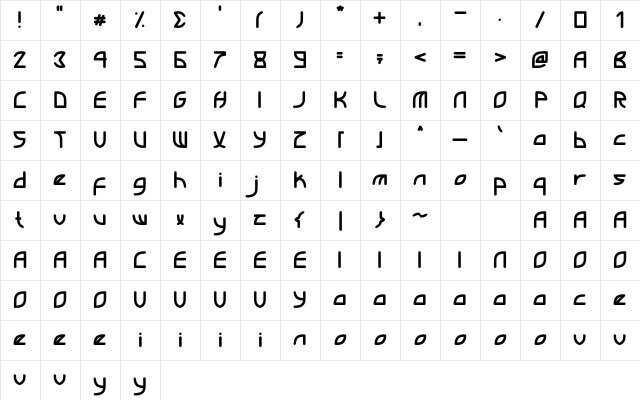
Jackwel Regular
Foundry: Rometheme Studio
Designer: Rometheme Studio
Design Context for Jackwel
Jackwel is a composed and adaptable typeface that performs quietly and consistently across a wide range of design contexts.